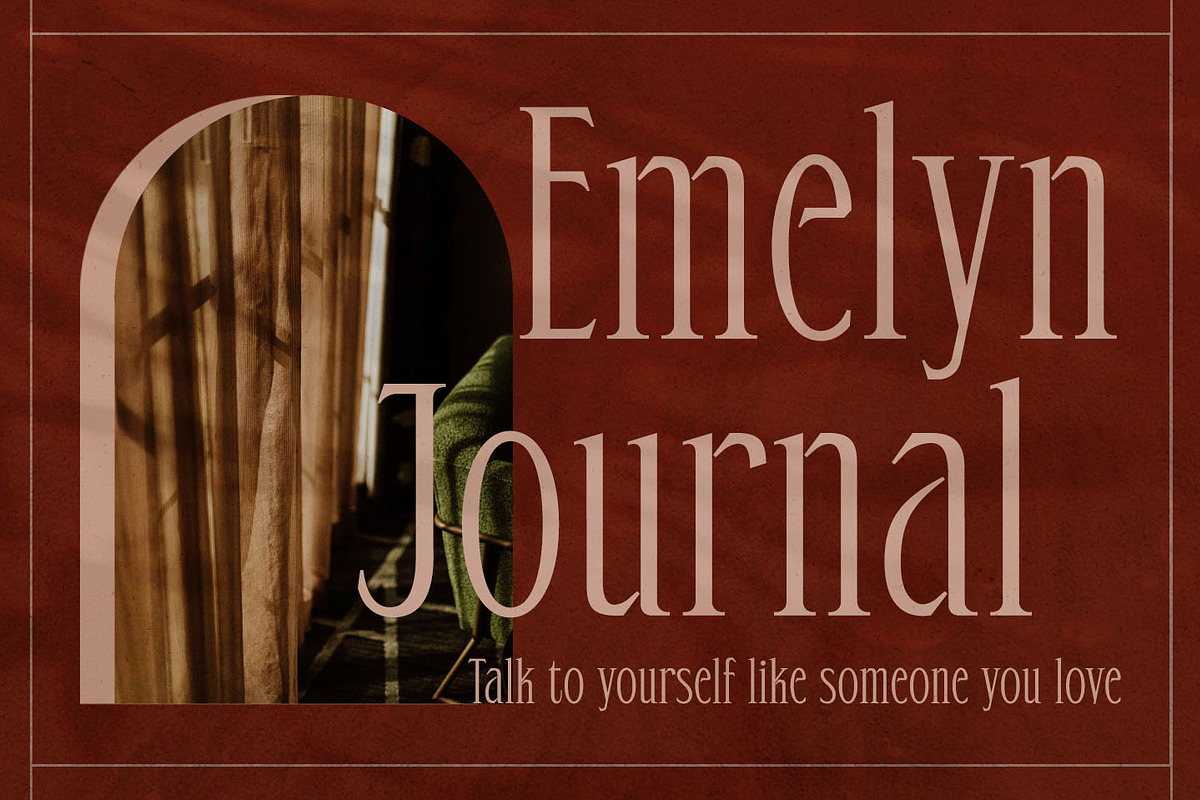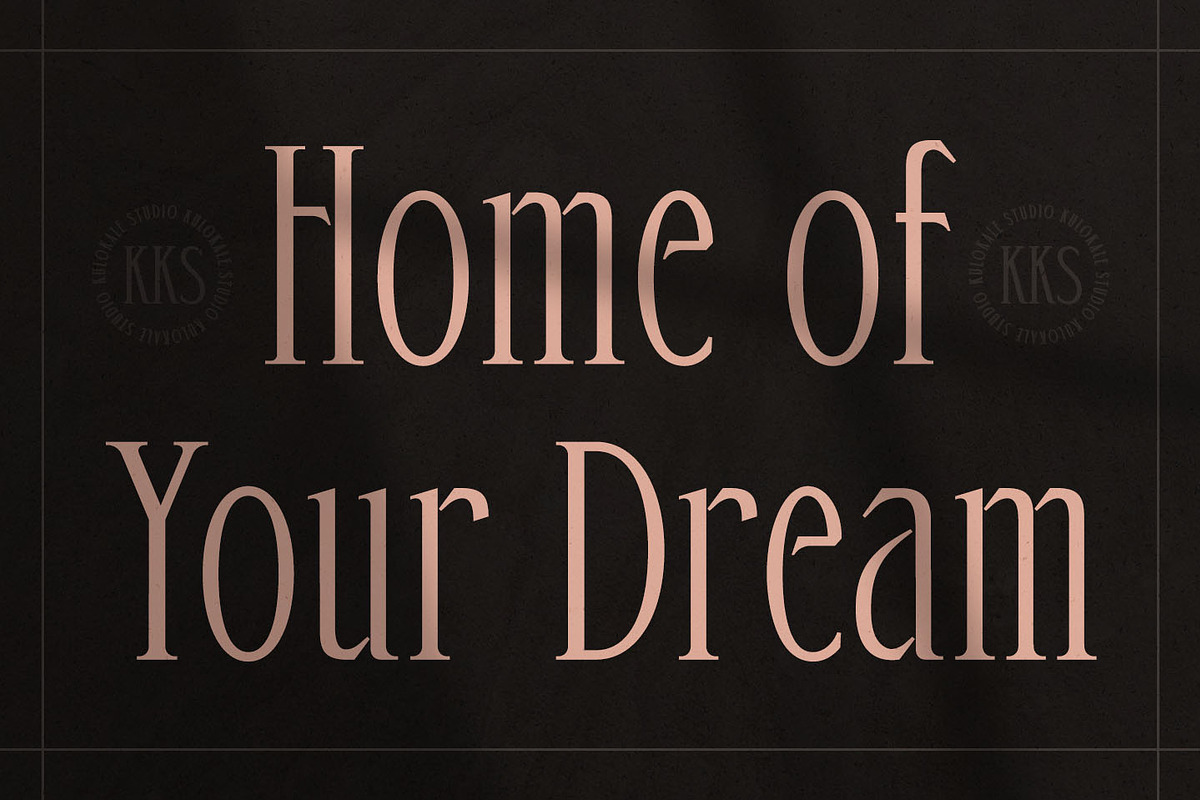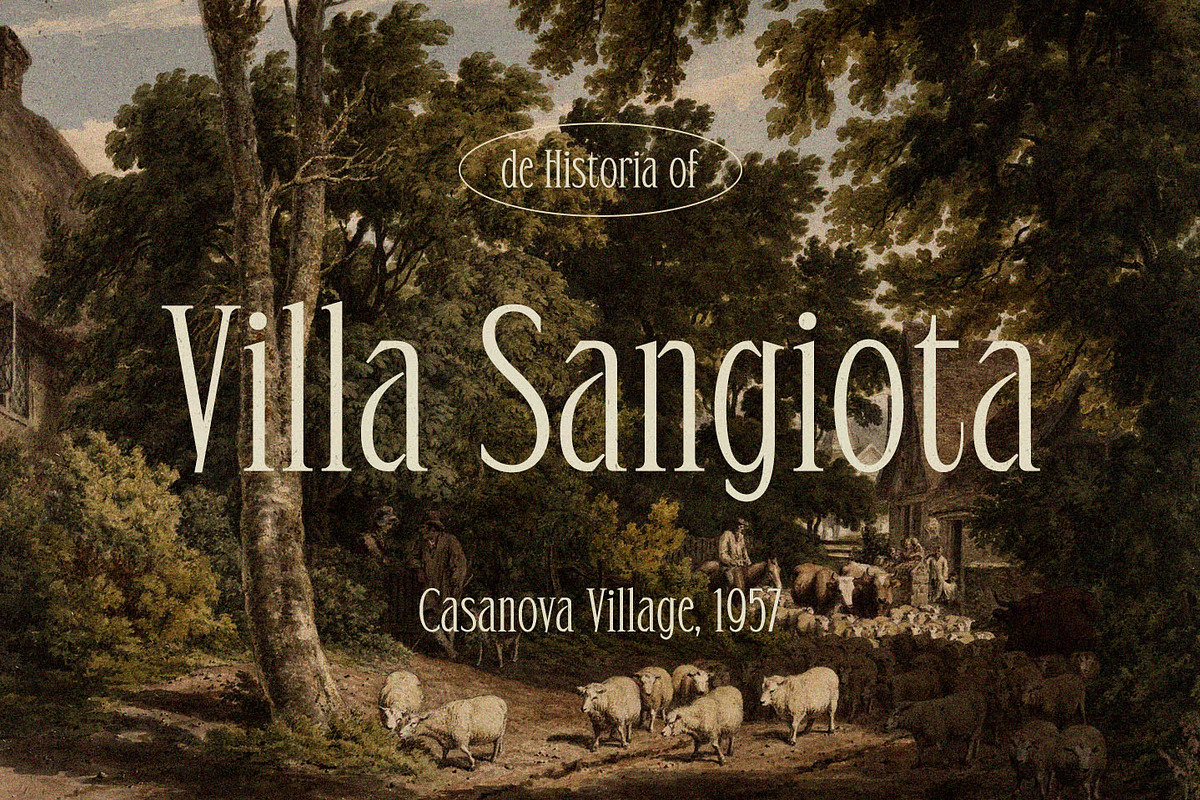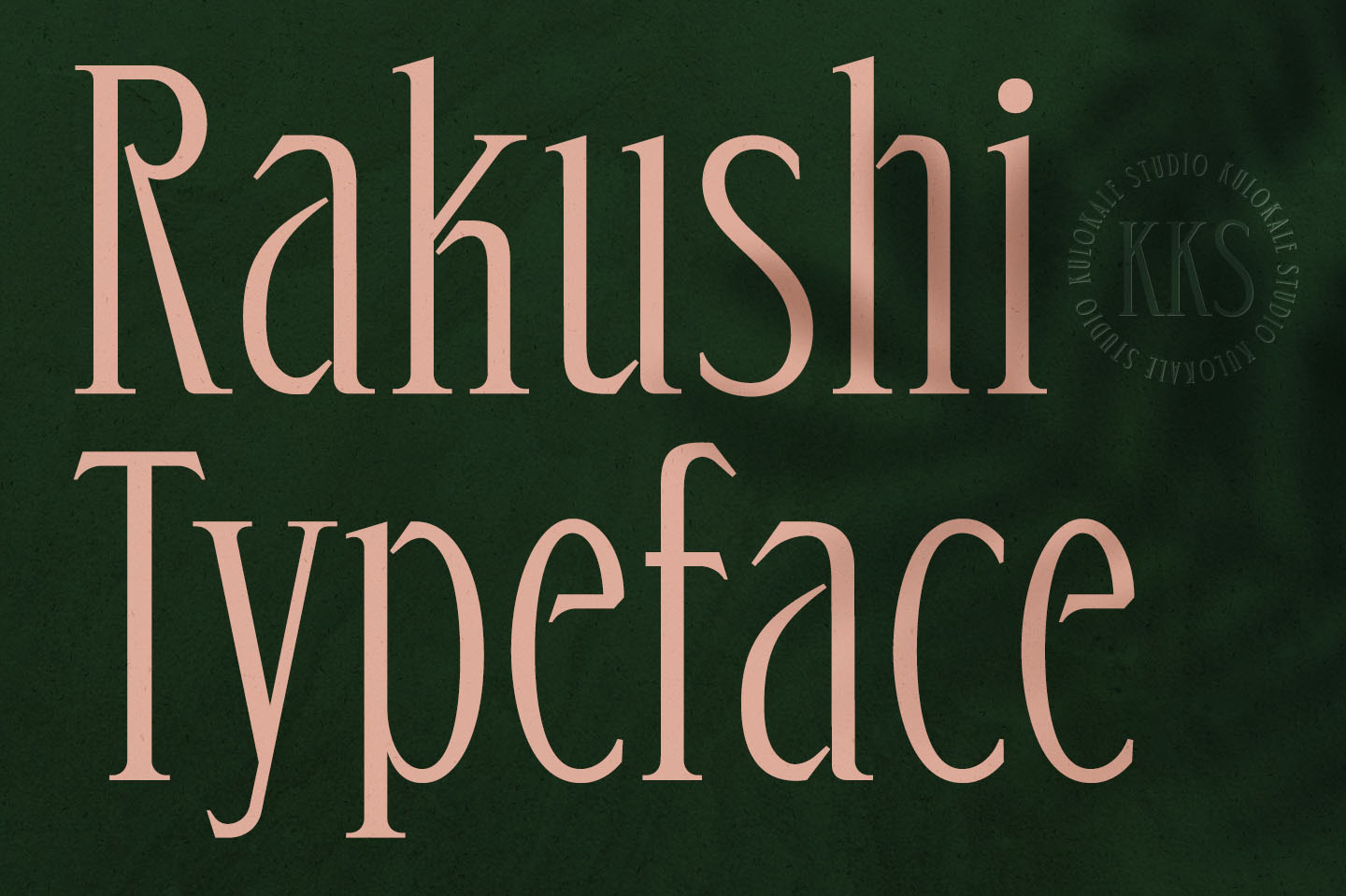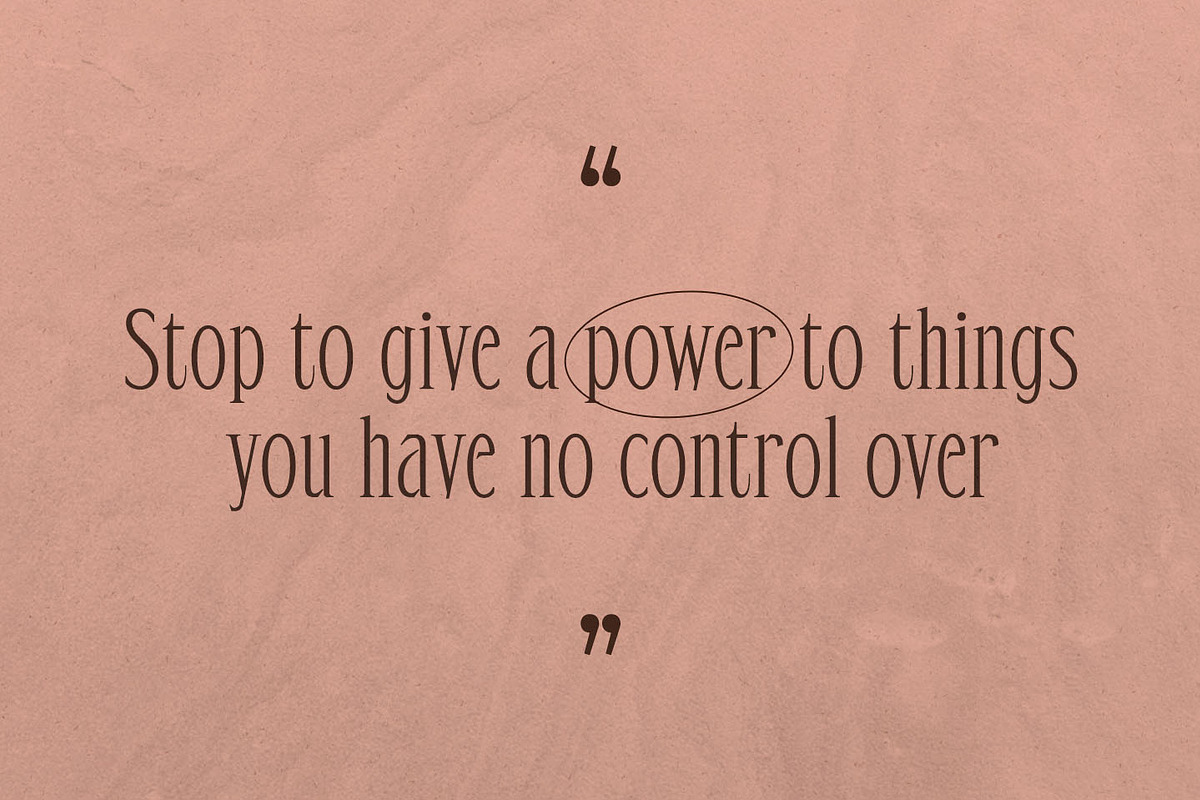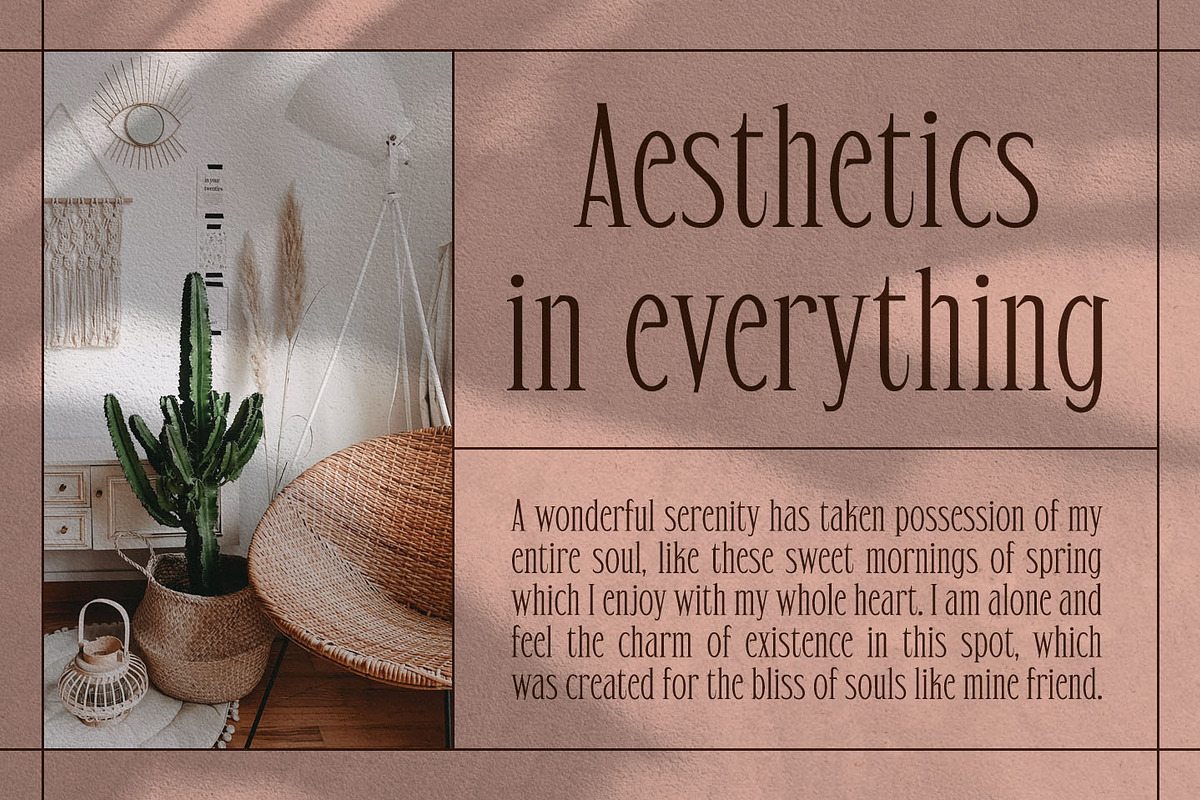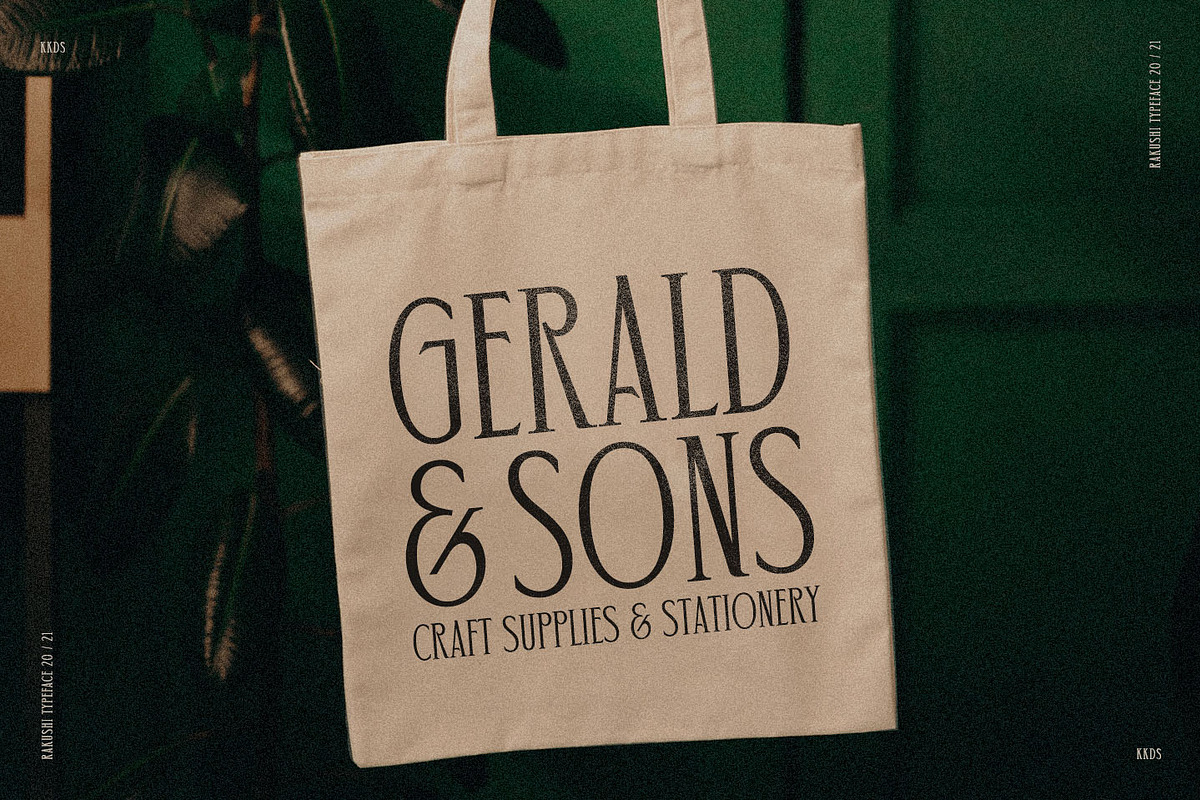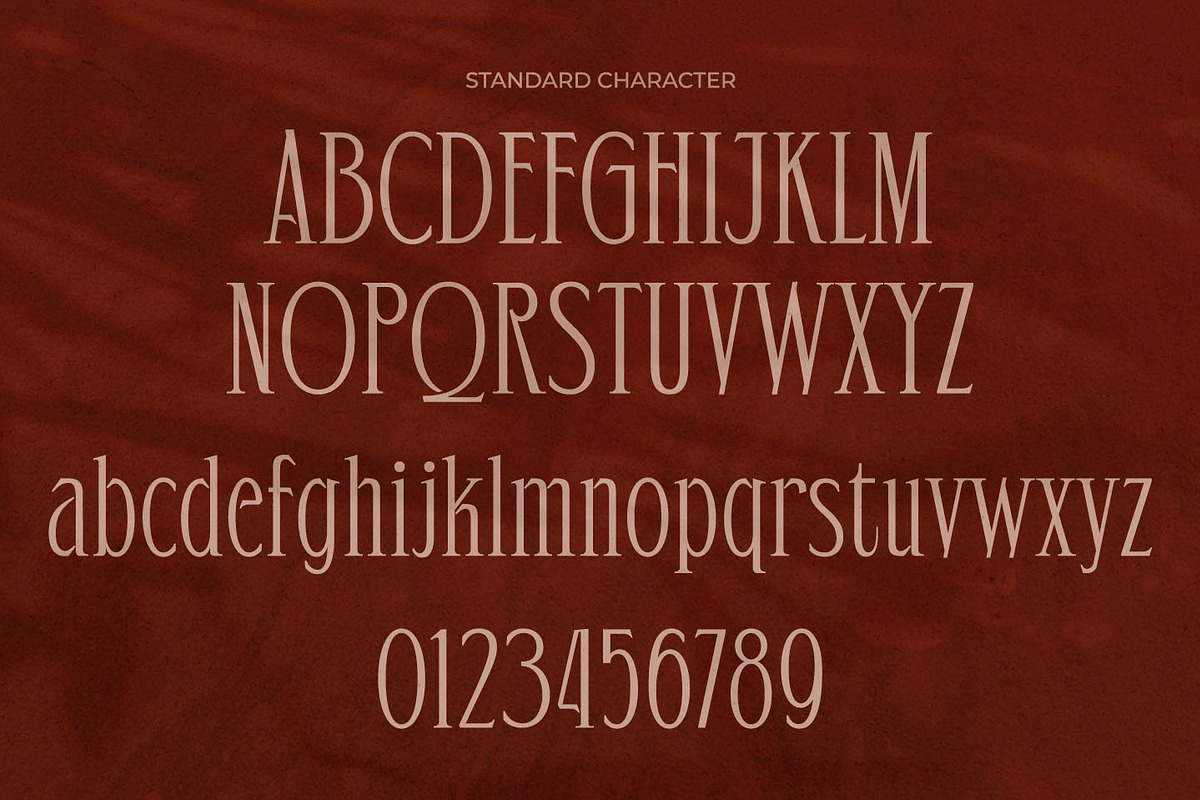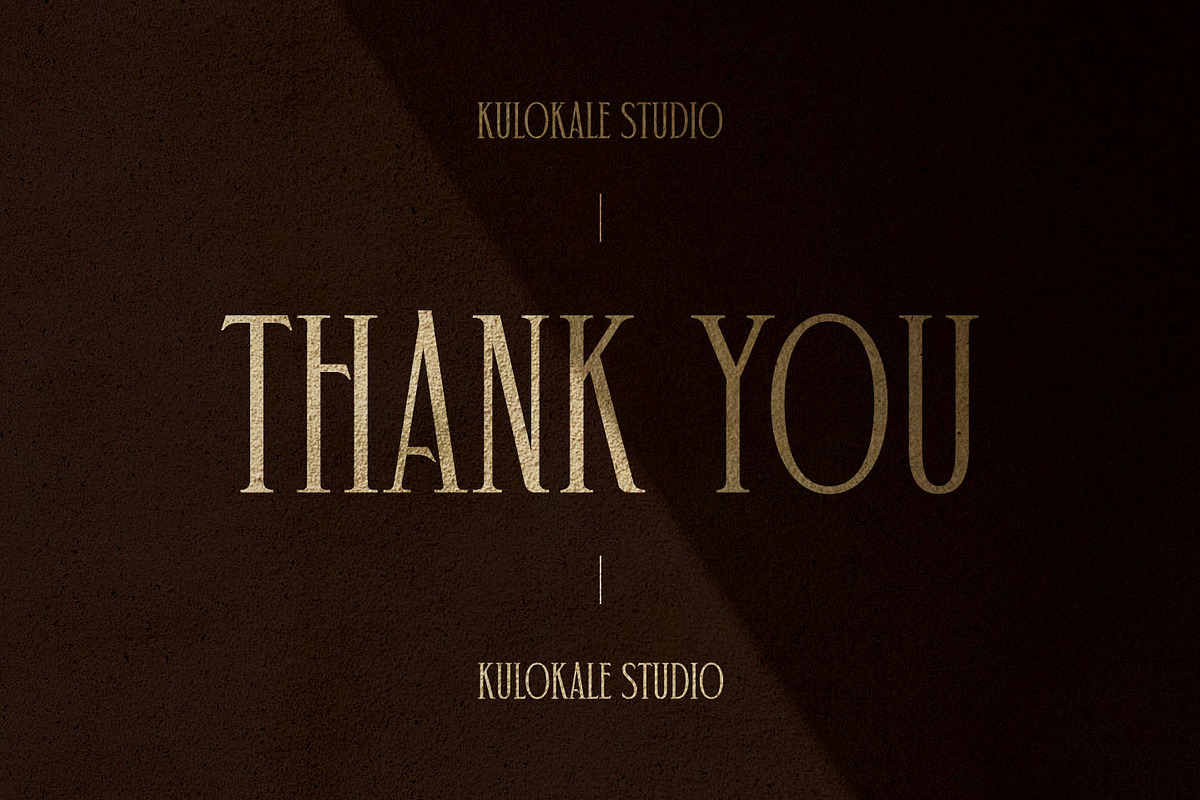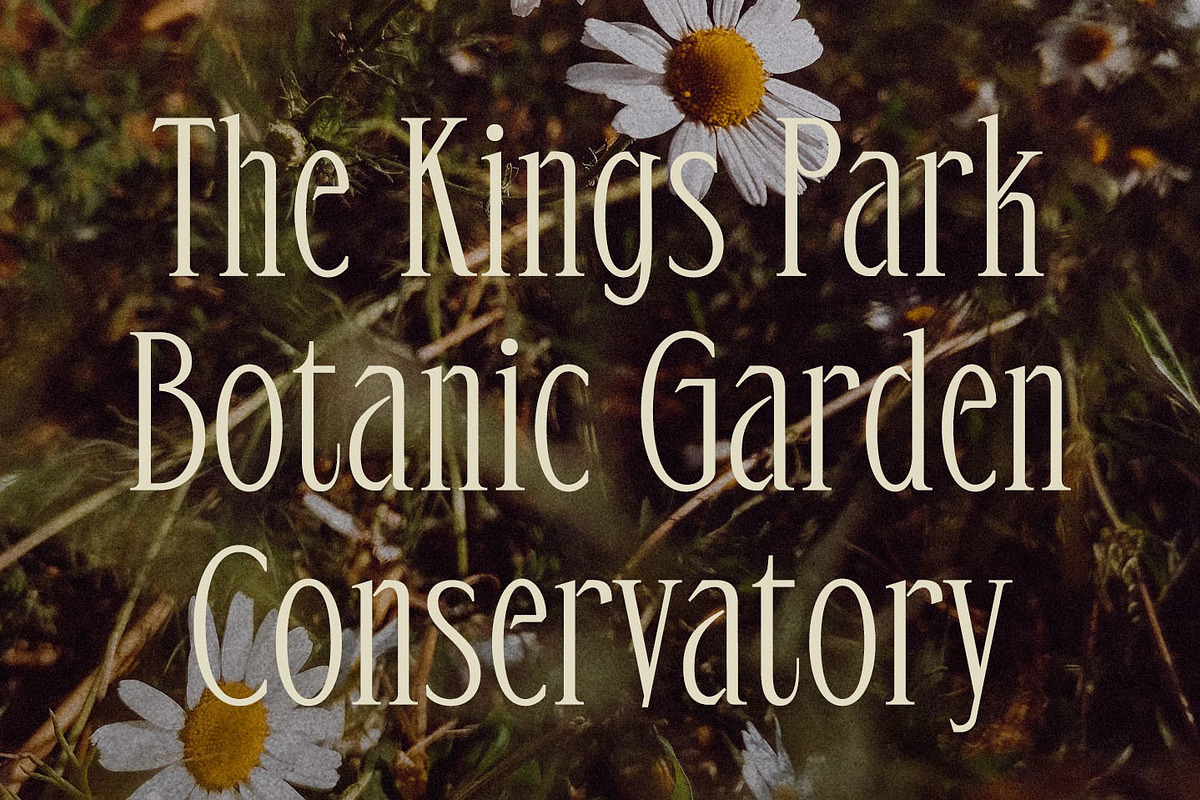
Rakushi is a contemporary and classic display serif font. Rakushi is well-suited for advertising, branding, logotypes, packaging, titles, headlines and editorial design. This font comes in two styles, Regular and Oblique Version.